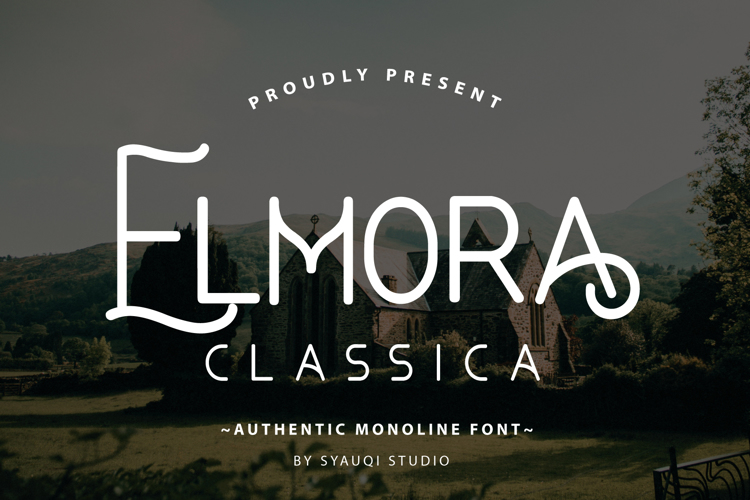
Elmora Classica Font
Introducing, this is our newest product, we call it
Elmora Classica.
Elmora Classica is an elegant and incredibly authentic monoline font. It has a vintage touch and an incredibly unique feel, so add it confidently and you will love the results.
Elmora Classica is very good to be used in:
vintage theme, architecture, photography, fashion, bakery, watermark, social media posts, advertisements, logos & branding, invitations, product designs, labels, stationery, visiting cards, wedding designs, product packaging, special events or anything that needs handwriting taste.